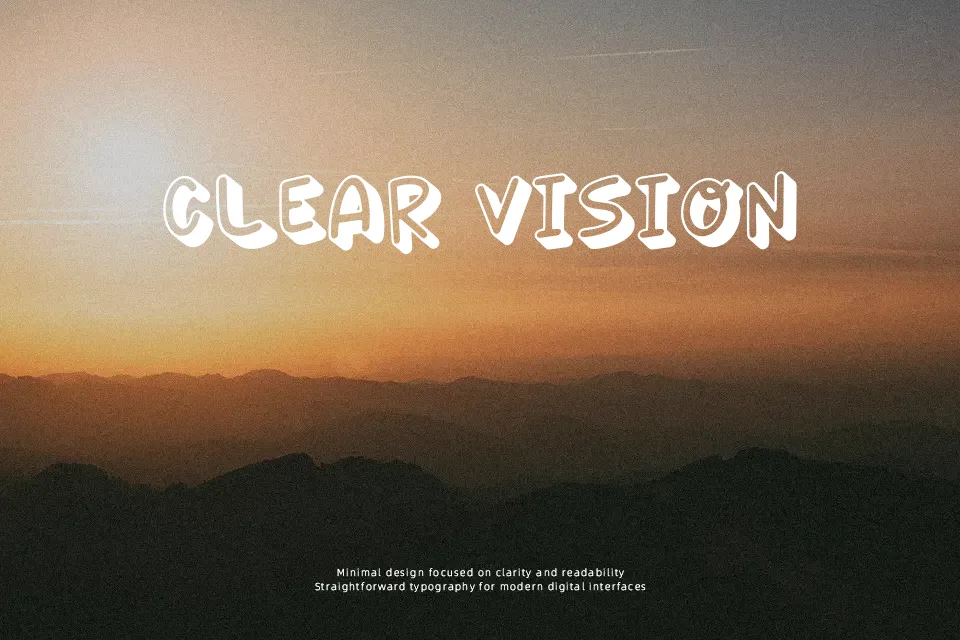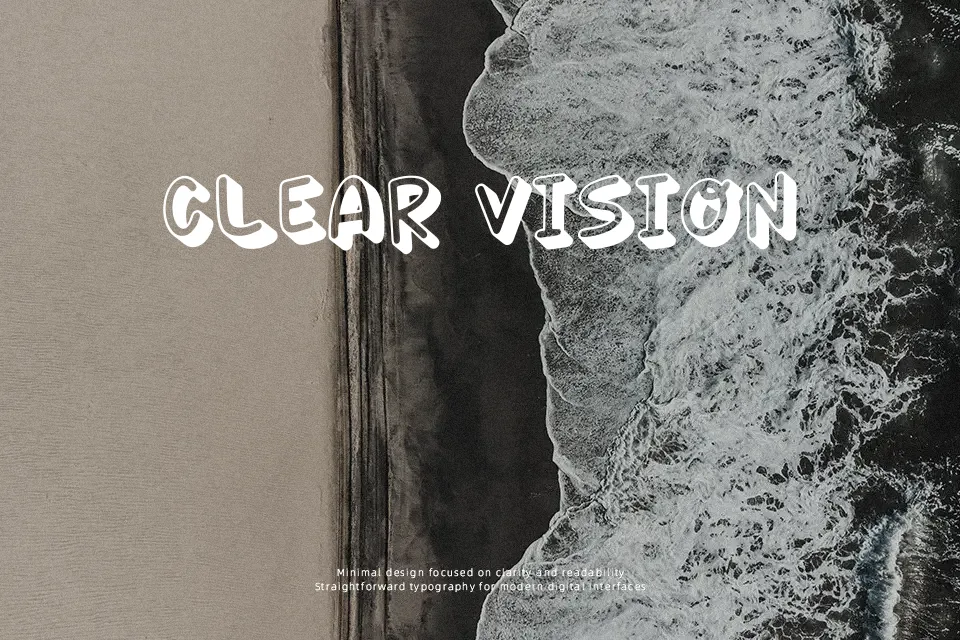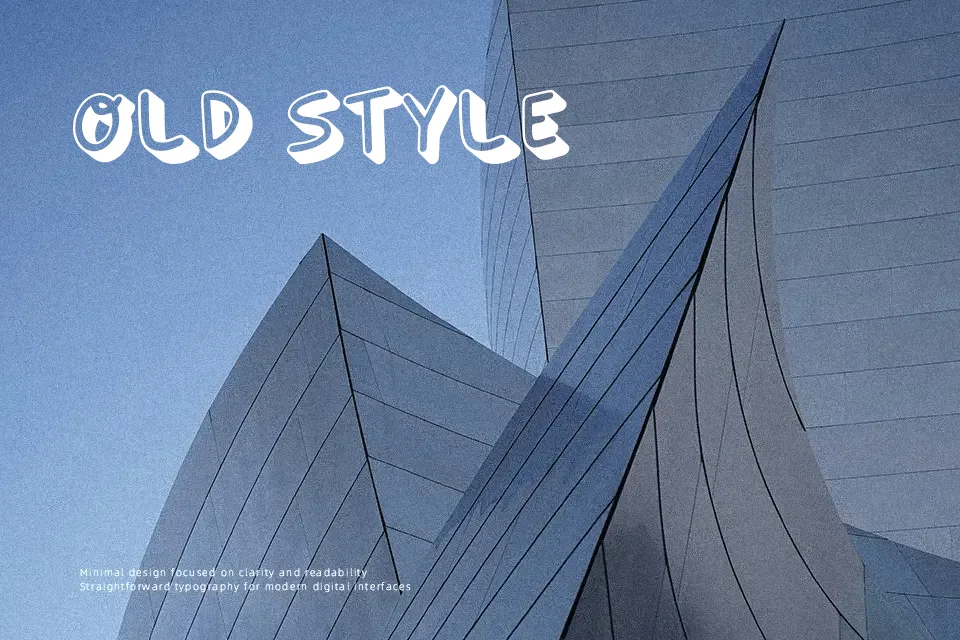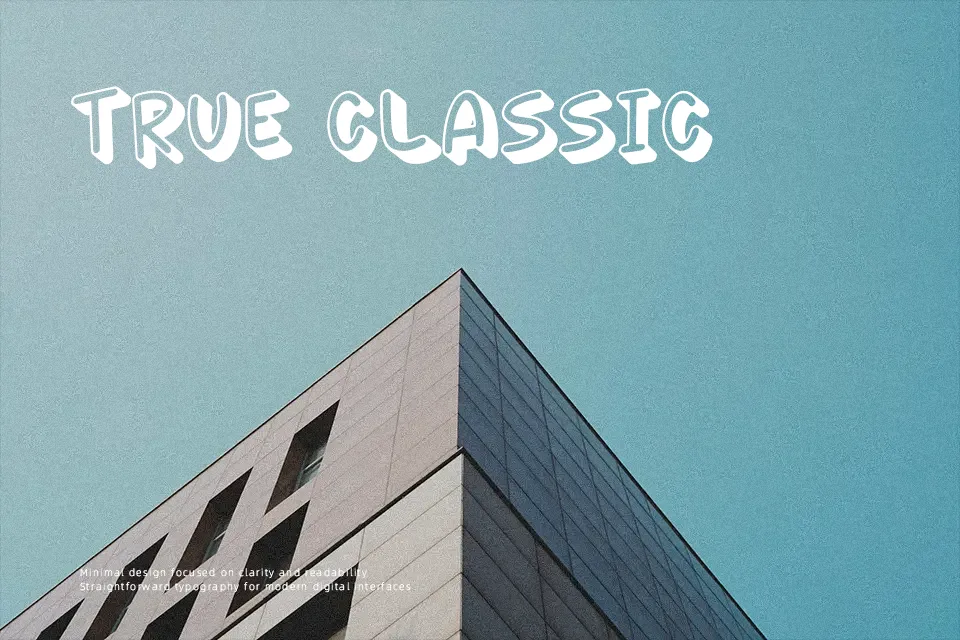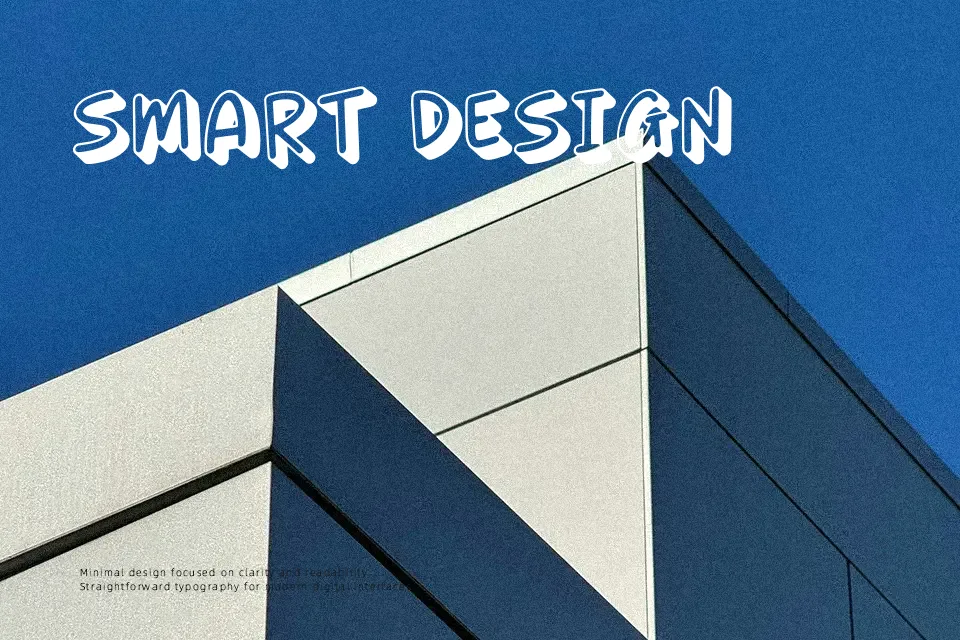
Sushi Shiro Font
Sushi Shiro Font showcases exaggerated, chunky letterforms built with thick outlines, organic curvature, and integrated dimensional depth. Each glyph maintains uniform stroke weight with tight internal counters and compact inter-character spacing, establishing an immediate comic-strip rhythm. These broad proportions give the typeface remarkable visual punch across promotional signage, animated video titles, and casual dining graphics. The robust letterforms remain exceptionally easy to recognize when set at large scale on banners or merchandise. However, the dense geometry and layered outlines cause smaller body text and continuous paragraphs to lose clarity rapidly, making this design best suited strictly for short, high-visibility headlines.
Best For: themed restaurant menus, children’s book covers, playful product packaging, casual event posters
Not Ideal For: extended editorial paragraphs, mobile interface body text, dense technical documentation, small legal disclaimers